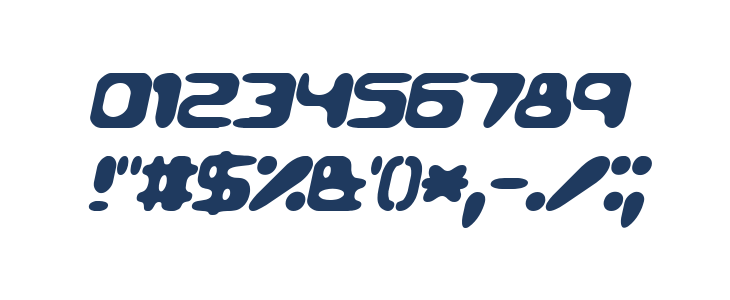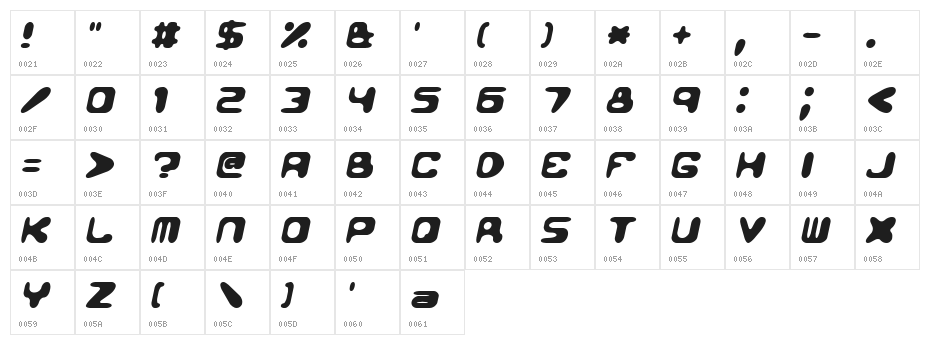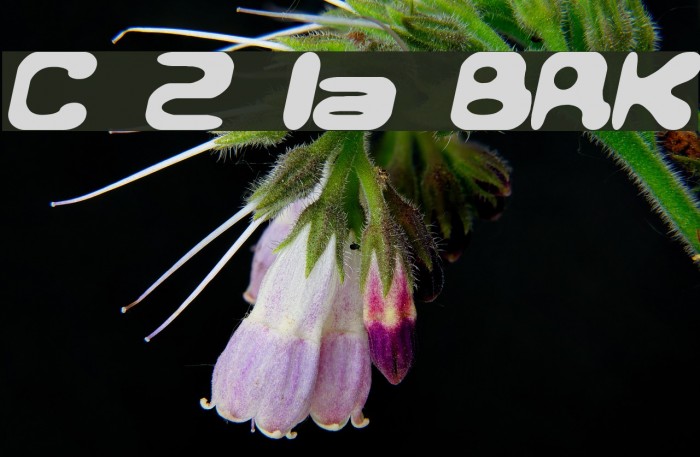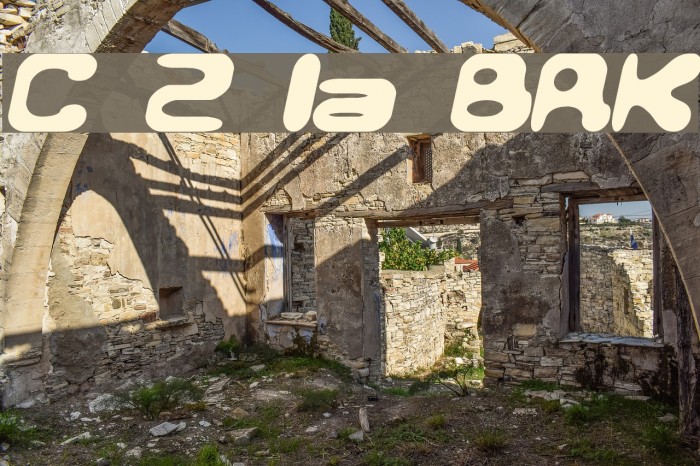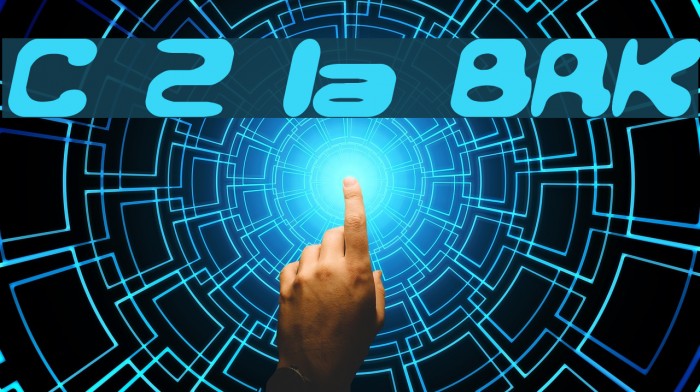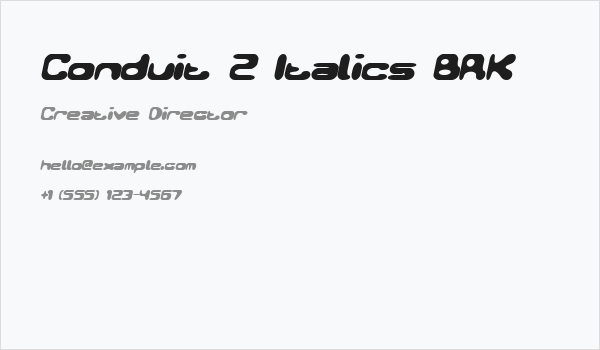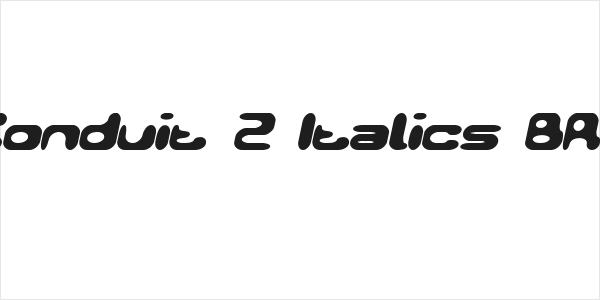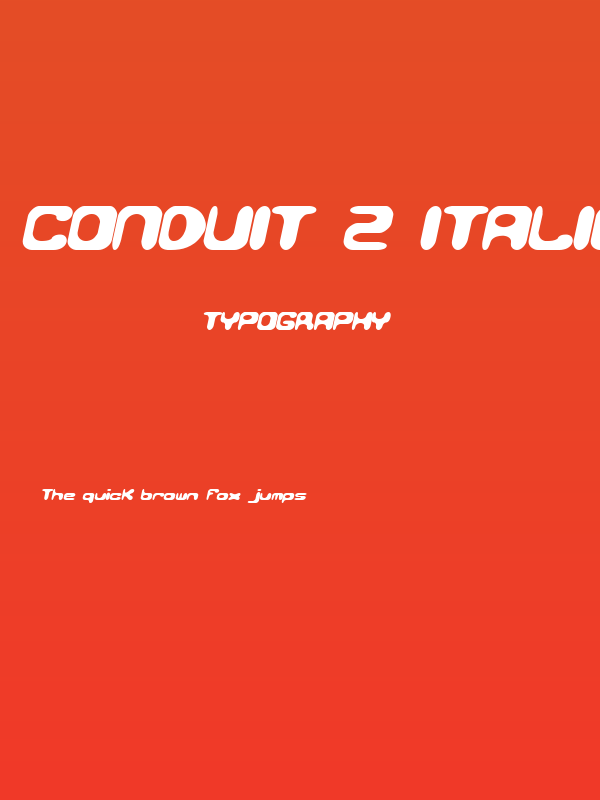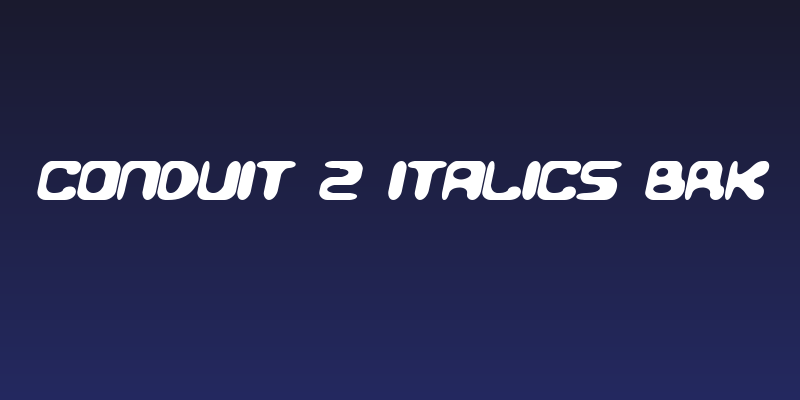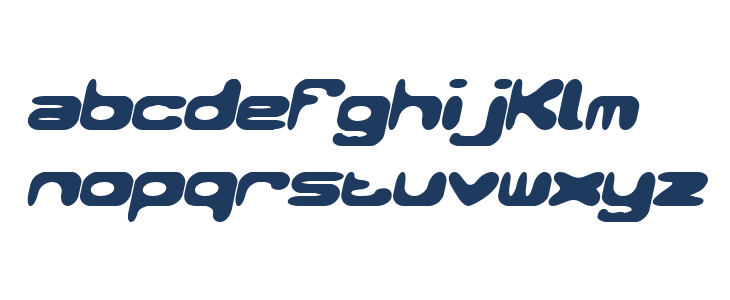
Conduit 2 Italics BRK Font
Conduit 2 Italics BRK Description
This font features a bold, rounded style with a futuristic and playful appearance. The characters are italicized, giving them a dynamic and forward-leaning posture. The strokes are thick and consistent, providing a strong visual impact. The rounded edges and smooth curves contribute to a friendly and approachable feel. The font maintains a uniform weight across all characters, ensuring readability while adding a unique flair. Its distinct style makes it suitable for creative and modern design projects.
| Overall Style | Futuristic, Playful |
| Proposed Projects | Ideal for sci-fi themed designs, video game graphics, posters, and branding for tech companies. |